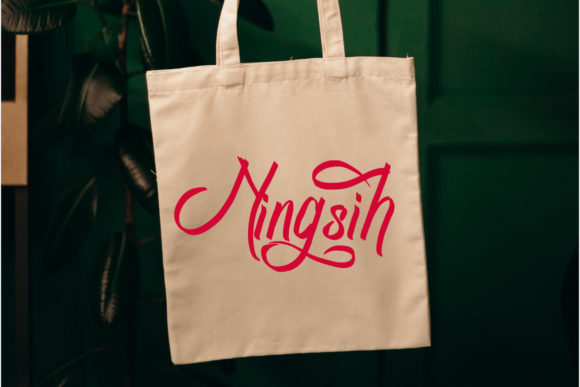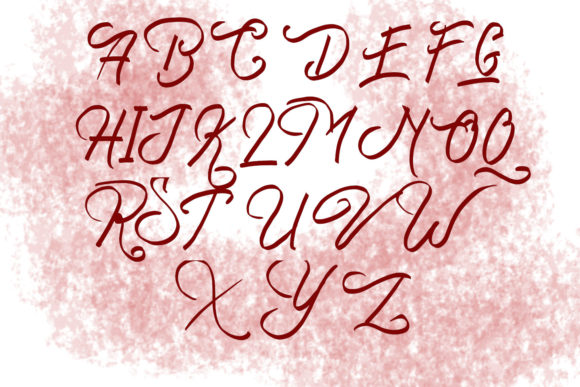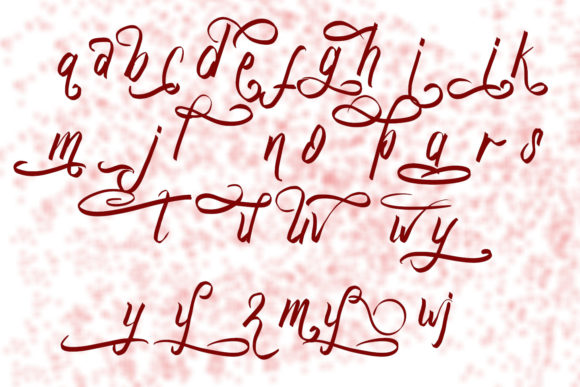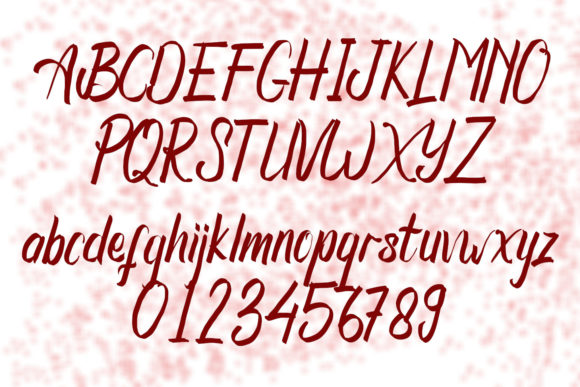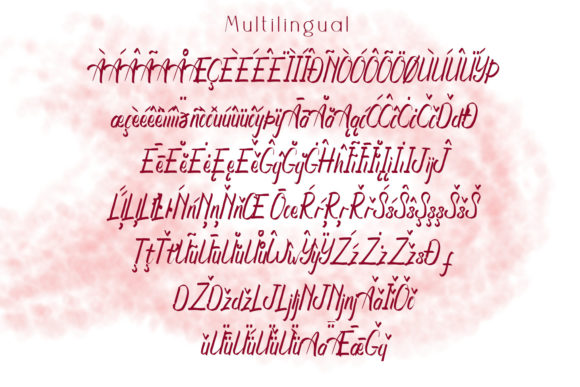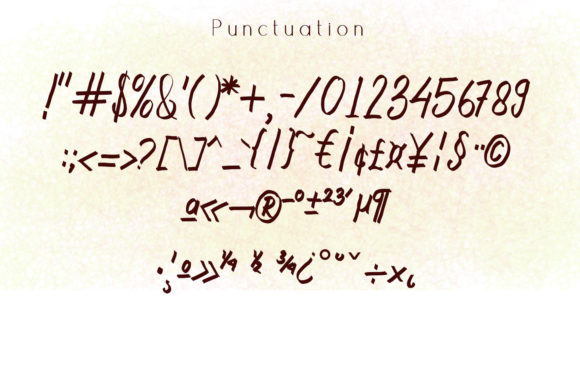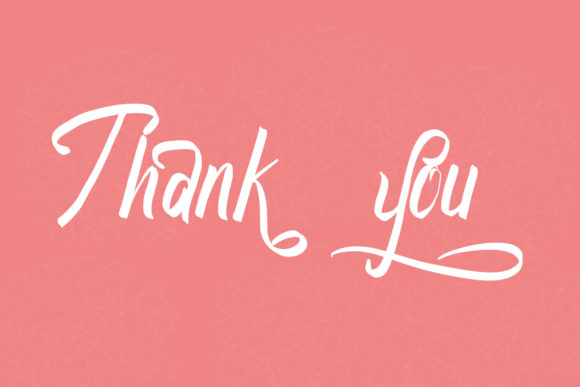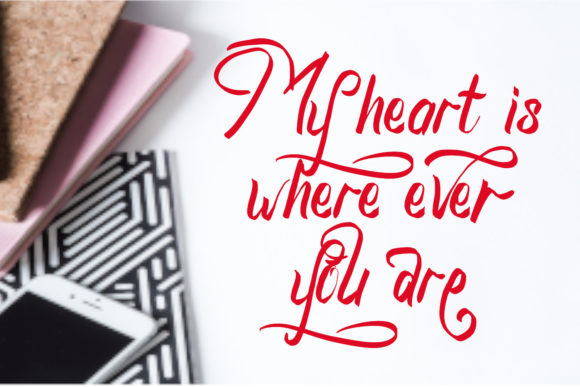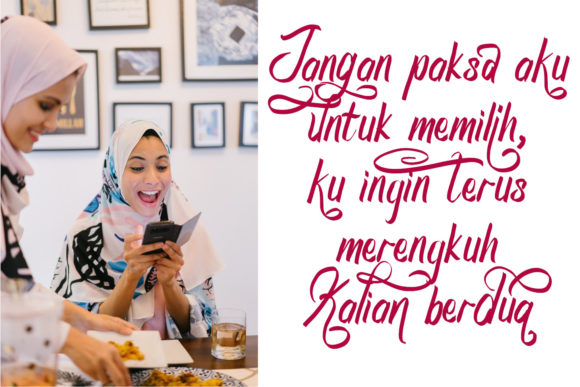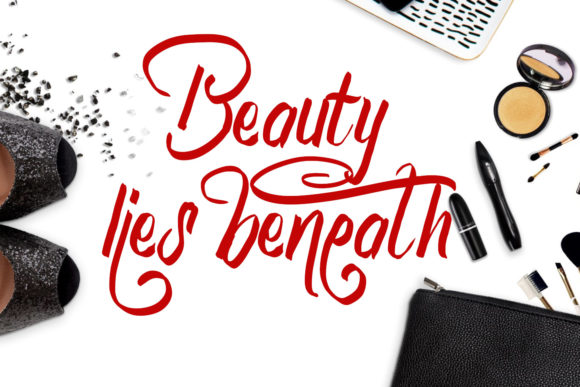
Zawjaty Font
About Zawjaty Font
“Zawjaty” is a font that exudes timeless elegance and graceful fluidity. Its refined and flowing style makes it a perfect choice for a wide array of design projects, adding a touch of sophistication and charm to each creation. Whether you’re crafting wedding invitations, thank you cards, quotes, greeting cards, logos, business cards, or any other design that requires a handwritten touch, “Zawjaty” will captivate your senses with its stunning visual appeal.
The beauty of “Zawjaty” lies in its ability to seamlessly adapt to various design contexts. Its elegant and flowing strokes, reminiscent of delicate calligraphy, add a layer of beauty that enhances every design element. Whether you’re designing for weddings, events, or any creative endeavor that calls for a touch of elegance, this font stands ready to elevate your work to new heights.
With a varying baseline and smooth lines, “Zawjaty” adds a dynamic and artistic flair to your designs. Its gorgeous glyphs and stunning alternates provide you with a versatile toolkit to create visuals that are not only visually striking but also uniquely your own. From classic to contemporary, this font effortlessly transforms your ideas into masterpieces.
Unleash your creativity and witness how “Zawjaty” enhances your designs with its refined and elegant touch. Whether you’re crafting exquisite logos, creating heartfelt stationery, or producing captivating social media graphics, this font will infuse your work with a sense of timeless beauty and allure that captures attention.
So, embrace the elegance of “Zawjaty” and let it become a staple in your design toolkit. Allow its flowing and elegant style to inspire your creations, turning them into remarkable works that leave a lasting impression. Whether you’re an experienced designer or an enthusiastic novice, “Zawjaty” empowers you to create visuals that exude sophistication and make a statement. Let “Zawjaty” be the key to unlocking the beauty of refined handwriting in your designs, and watch as it elevates your projects to new levels of excellence and elegance!